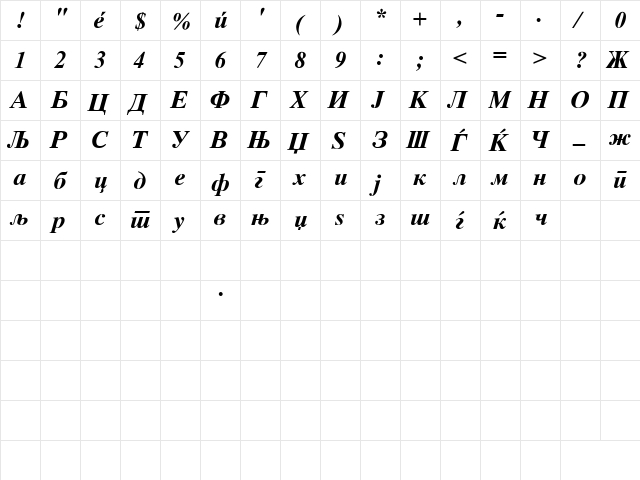
Mak_Times_BI Regular
Design Context for Mak_Times_BI Typeface
Mak_Times_BI takes a measured approach to typography — its balanced proportions and neutral character make it a reliable workhorse for both digital and print work.